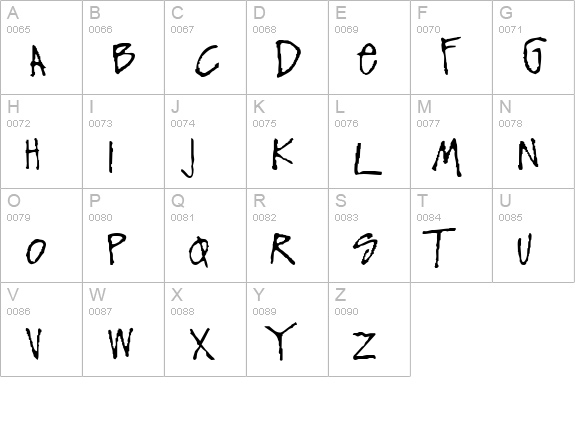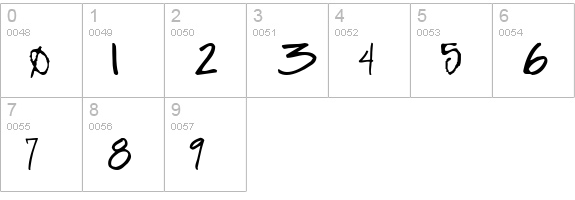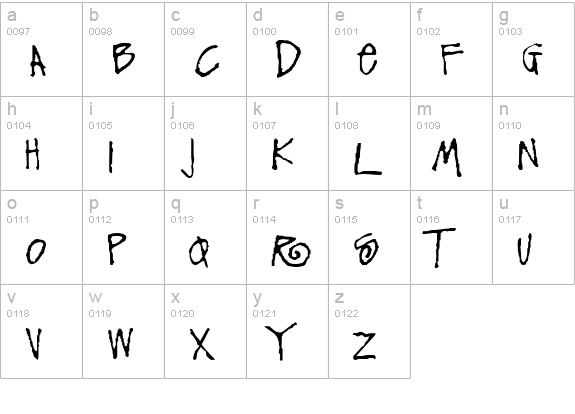
Funky Regular is the standard, neutral variant in the Funky typeface family \xE2\x80\x94 well suited to general body text, paragraphs, and standard typographic work.
Introducing Funky Regular font - a vibrant and playful typeface that adds a fun and energetic touch to any design project. This font features distinct and eye-catching letterforms with a funky twist that will make your text stand out. Perfect for posters, flyers, logos, and more, Funky Regular font is sure to grab attention and leave a lasting impression. The best part? Funky Regular font is available for free download at FontsMarket.com. This means you can easily add this unique and stylish font to your collection without having to spend a dime. So why wait? Get your hands on Funky Regular font today and let your creativity shine!